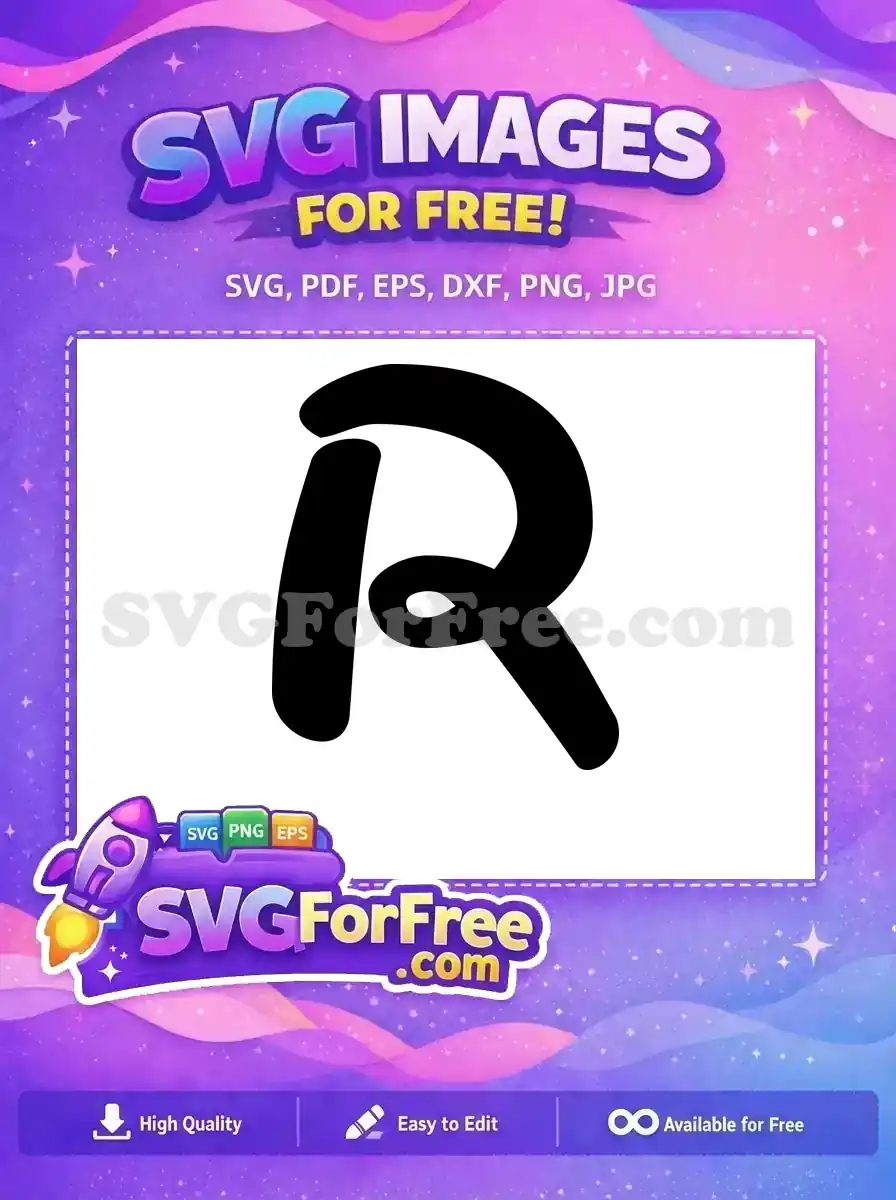
Free Minnie Bold Font Free Letter R Initial Free SVG – Instant Download
Bold script letter ‘R’ with a fluid shape, free vector design.
Free Minnie Bold Font Free Letter R Initial Free SVG